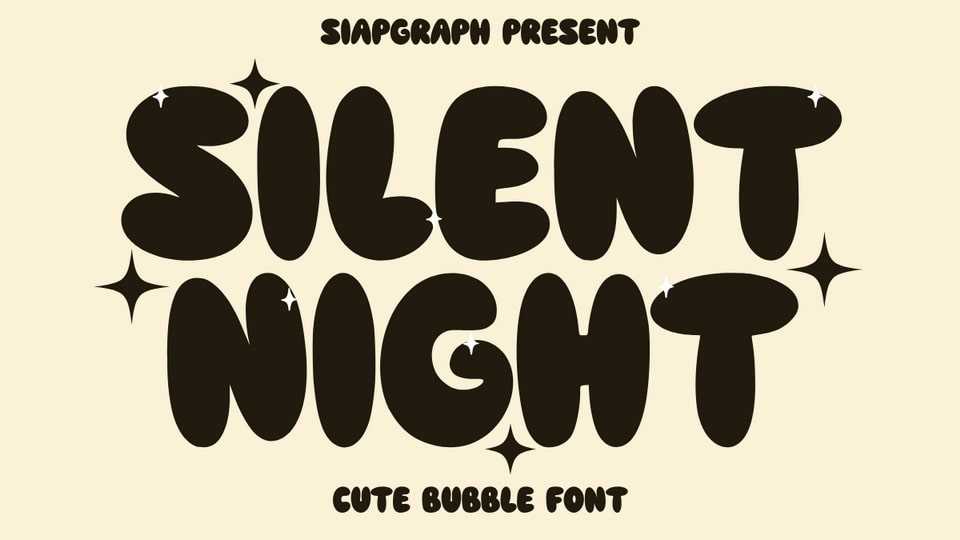
Download Silent Night font, a playful and cozy bubble typeface that radiates charm and warmth. Its rounded, oversized letterforms create a fun and approachable aesthetic.
Designer: SiapGraph